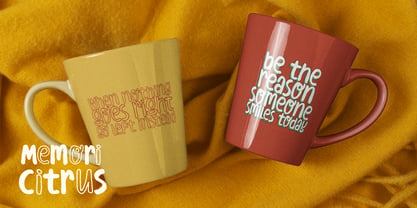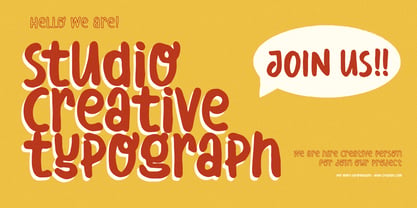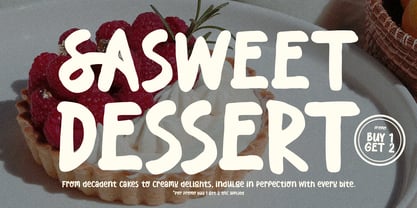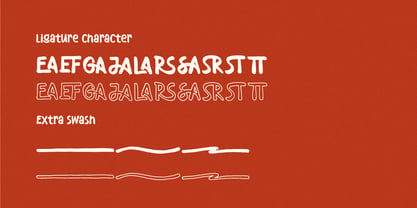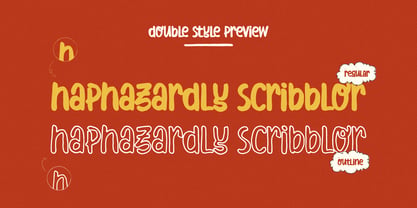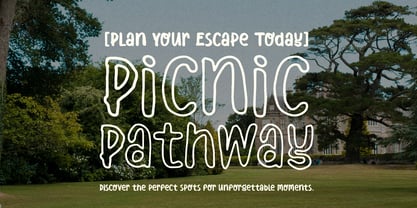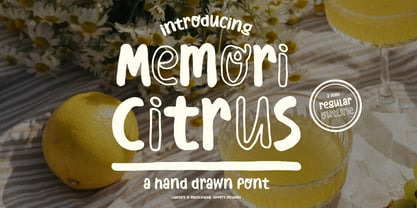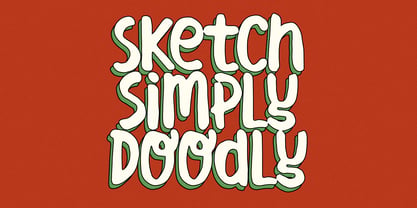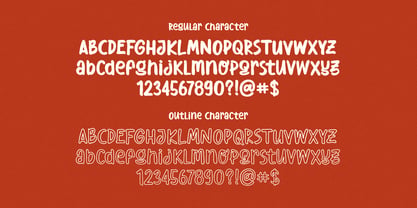
Memori Citrus
por Denustudio
La familia tipográfica Memori Citrus fue diseñada por Dede Nugraha y publicada por Denustudio. Memori Citrus contiene 1 estilos. Más información sobre esta familia
Memori Citrus | Hand Drawn Font, from Denustudios, suitable for any projects such as: logos, branding projects, homeware designs, product packaging, mugs, quotes, posters, shopping bags, t-shirts, book covers, name card, invitation cards, greeting cards, label, photography, watermark, special events, and all your other lovely projects that need a Hand Drawn Font taste.
Diseñadores: Dede Nugraha
Fundición: Denustudio